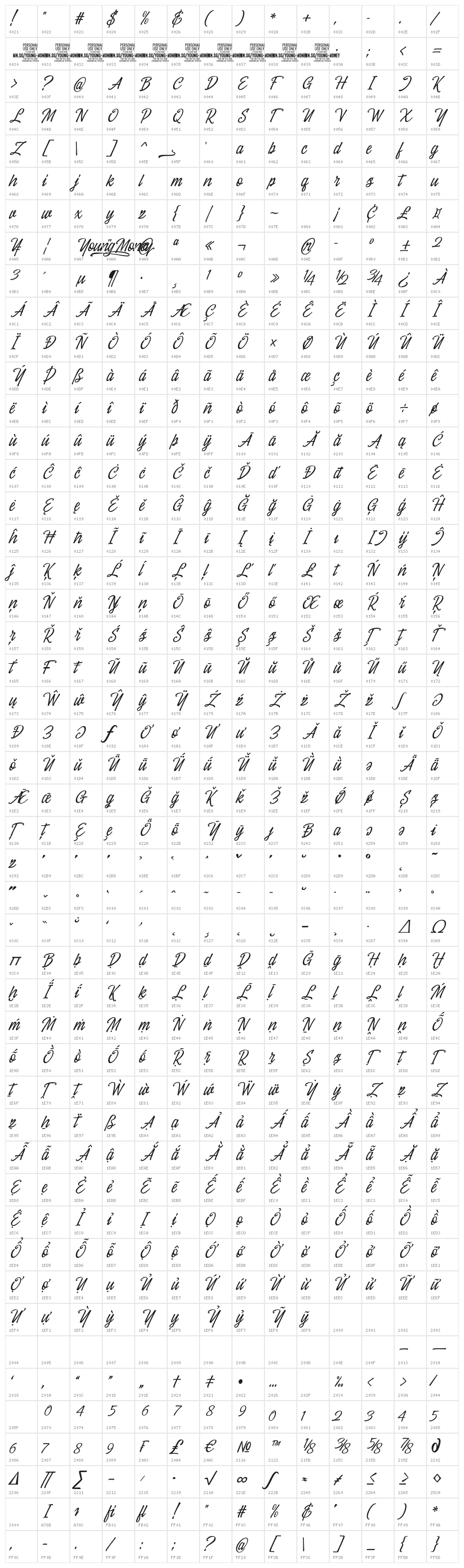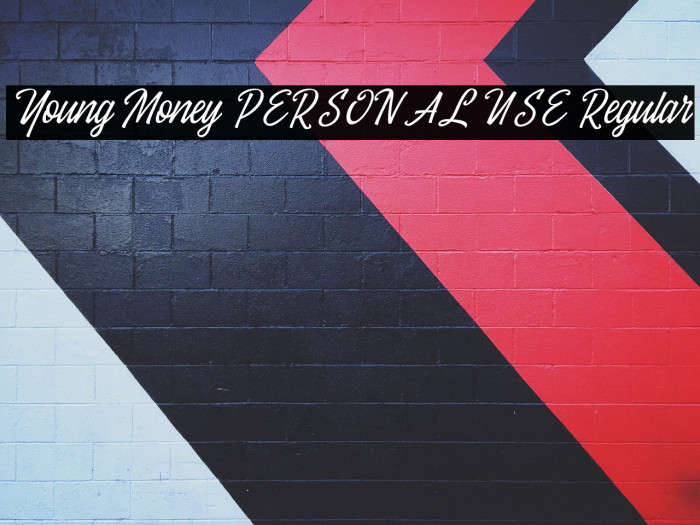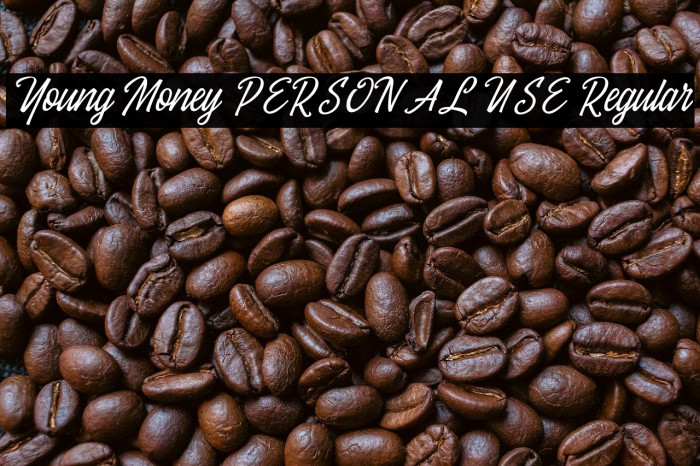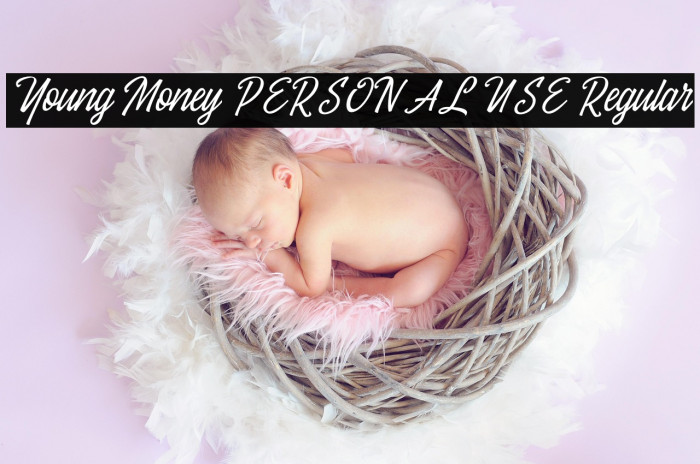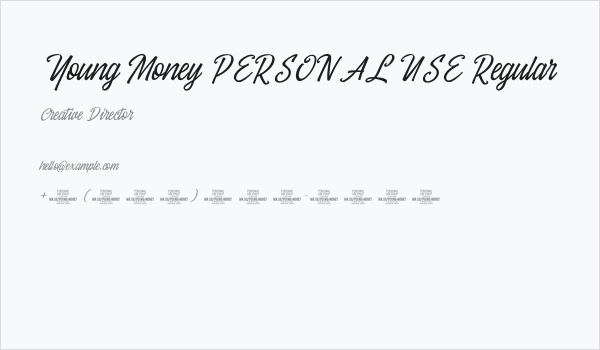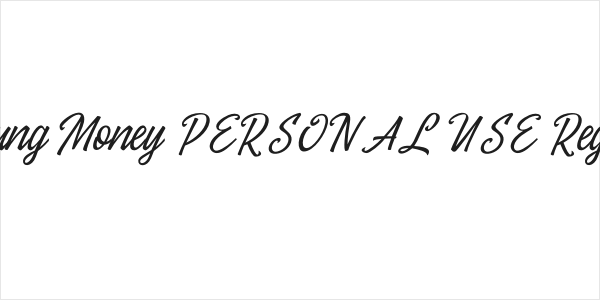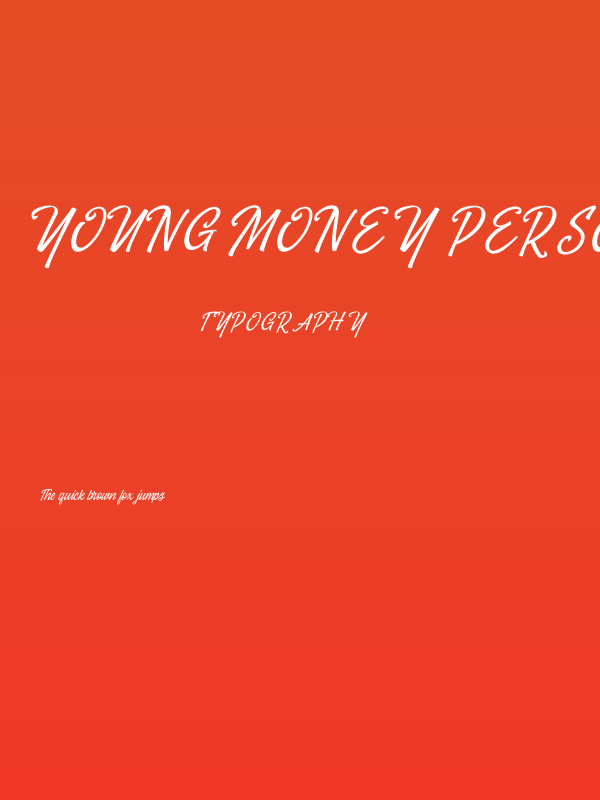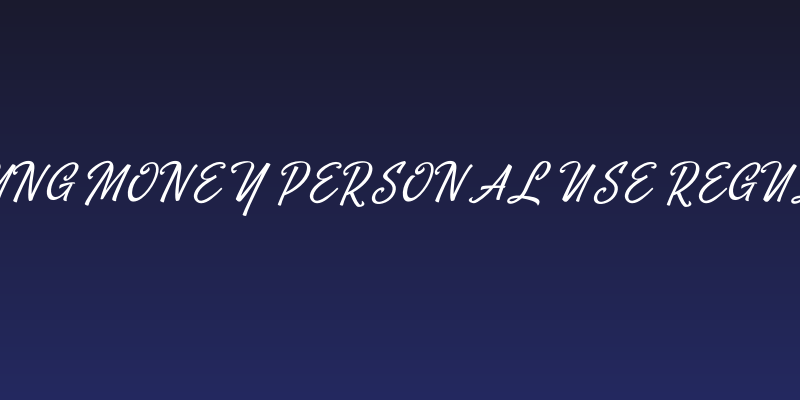
Young Money PERSONAL USE Regular Font
Young Money PERSONAL USE Regular Description
This font features a dynamic and flowing script style, characterized by its elegant and cursive letterforms. The uppercase letters exhibit a graceful slant with smooth curves, while the lowercase letters maintain a consistent rhythm and fluidity. The font includes a full set of numerals and a variety of special characters, each designed with the same attention to detail and stylistic flair. The overall appearance is both sophisticated and modern, making it suitable for a wide range of creative applications.